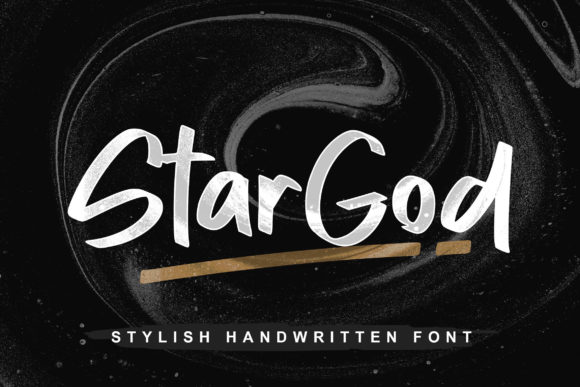
Dive into the world of Stargod, a modern and sophisticated display font that exudes personality and elegance. Its bold and captivating letters dance across any design, creating a visual symphony that's sure to leave a lasting impression. With Stargod, your words transform into art, capturing the attention of all who encounter them.
Stargod's versatility knows no bounds. Its friendly and inviting nature makes it the perfect choice for a plethora of projects, from cleaning company logos to captivating posters and eye-catching social media designs. Whether you're looking to create a strong brand identity or simply add a touch of flair to your creative endeavors, Stargod is the font that will elevate your designs to new heights.
Imagine your cleaning company's logo, emblazoned with the bold strokes of Stargod. It instantly conveys a sense of professionalism and trustworthiness, leaving a lasting impression on potential clients. Or picture your latest poster, adorned with Stargod's elegant curves. The message you convey becomes unforgettable, capturing the attention of passersby and leaving them with a lasting memory.
With Stargod, you have the power to transform the ordinary into the extraordinary. Its user-friendly nature makes it accessible to designers of all levels, allowing you to unleash your creativity without limitations. Let Stargod be your artistic compass, guiding you towards designs that resonate with your audience and leave a lasting impact.
Stargod is more than just a font; it's an invitation to explore the boundaries of your creativity. Its bold and elegant lettering will add a touch of sophistication to any project, effortlessly elevating your designs to new heights. Join the ranks of creative visionaries who have harnessed the power of Stargod to create designs that captivate and inspire.